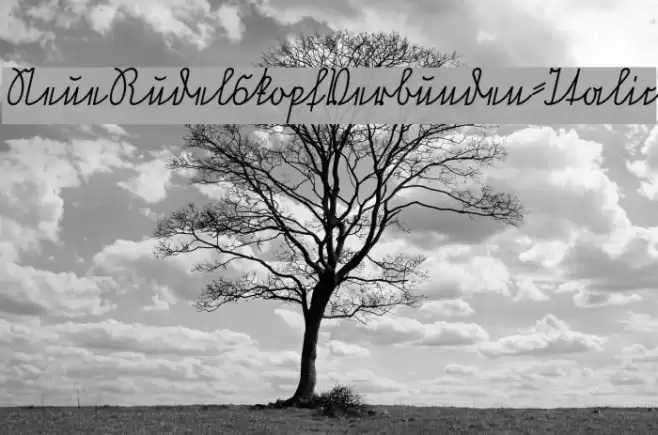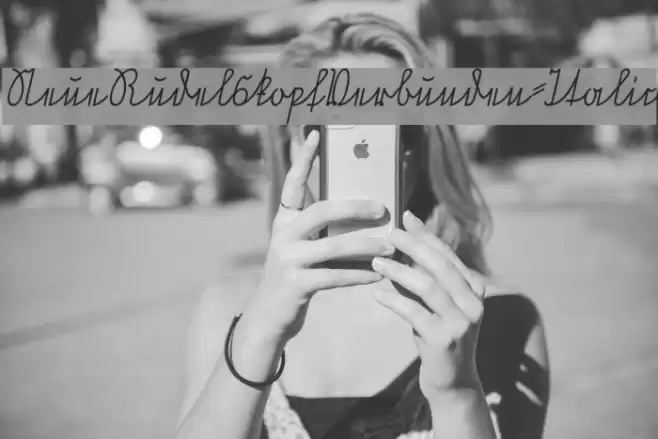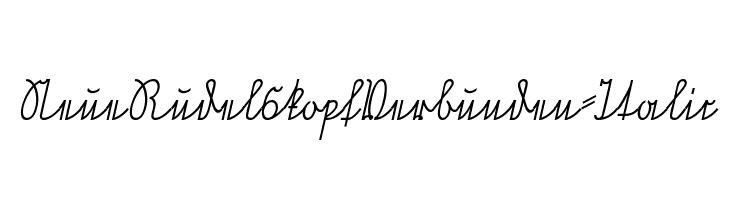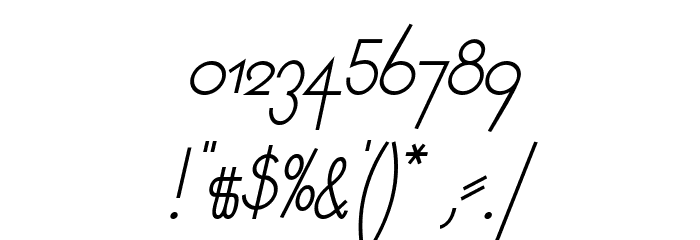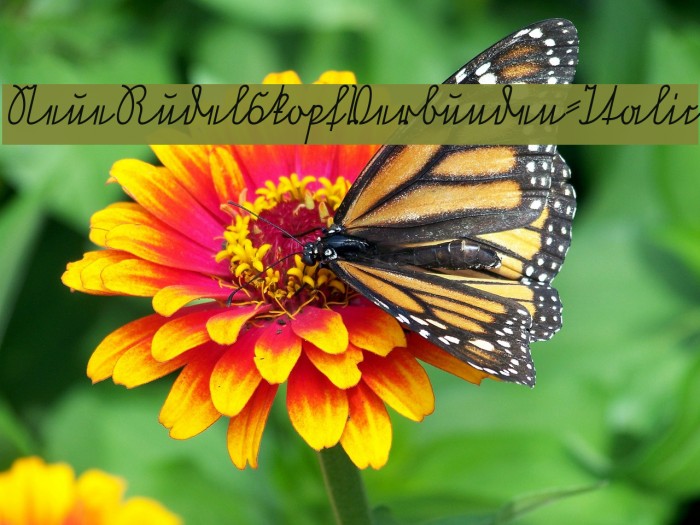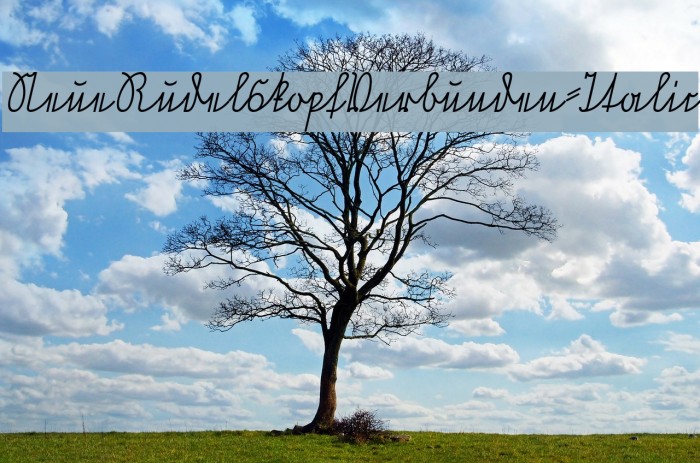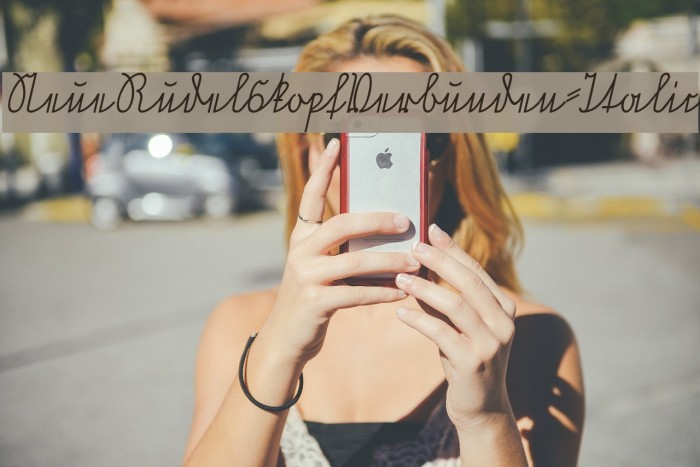
NeueRudelskopfVerbunden-Italic Font
NeueRudelskopfVerbunden-Italic Description
This font exhibits a flowing, connected script style that mimics elegant handwriting. The letters are slanted, giving it an italic appearance, and each character is smoothly connected to the next, creating a seamless flow. The strokes are consistent in width, with a slight variation that adds a touch of sophistication. The uppercase letters are distinct and ornate, while the lowercase letters maintain a more subdued elegance. Numbers and special characters are designed to match the overall cursive style, ensuring a cohesive look across all text. This font is ideal for projects that require a personal, handwritten touch, such as invitations, greeting cards, or branding materials that aim to convey elegance and sophistication.
A flowing, connected script font with an elegant, italic style from Uncategorized fonts.
- Proposed Projects: Ideal for wedding invitations, greeting cards, personal branding, and elegant packaging design.
- Character Spacing: Tight
- Overall Style: Elegant, Handwritten
- Use Case: Invitations, Greeting cards, Personal branding